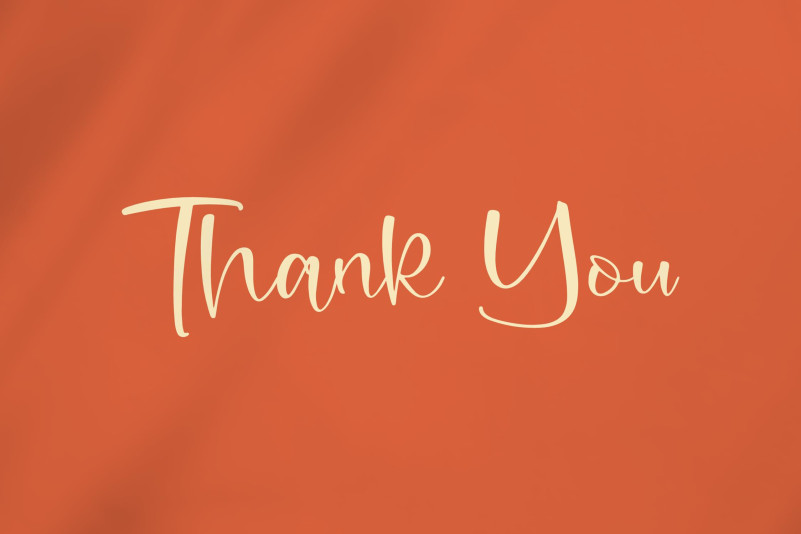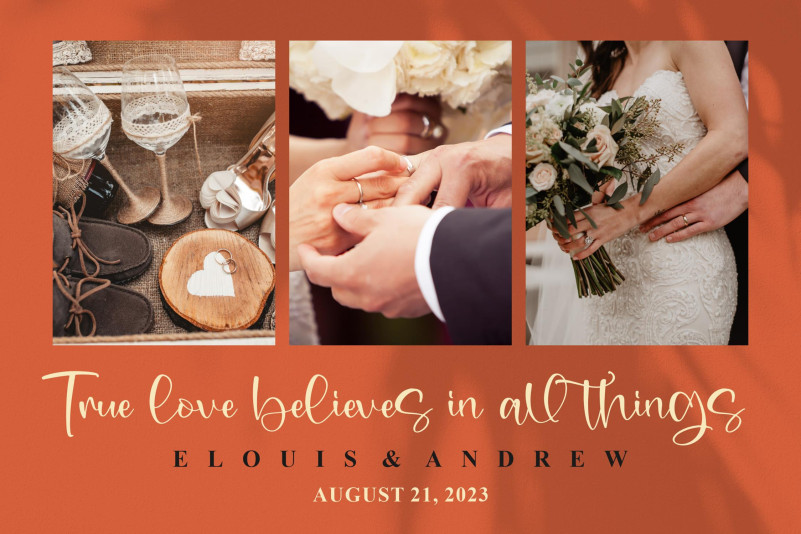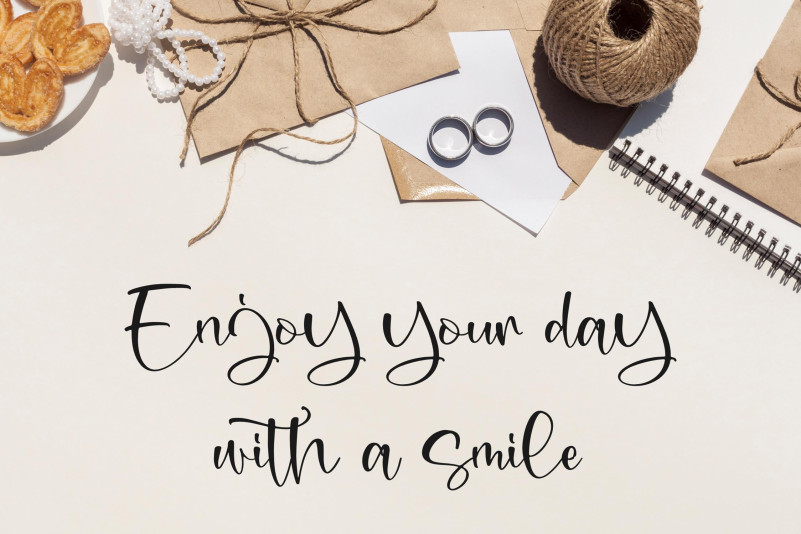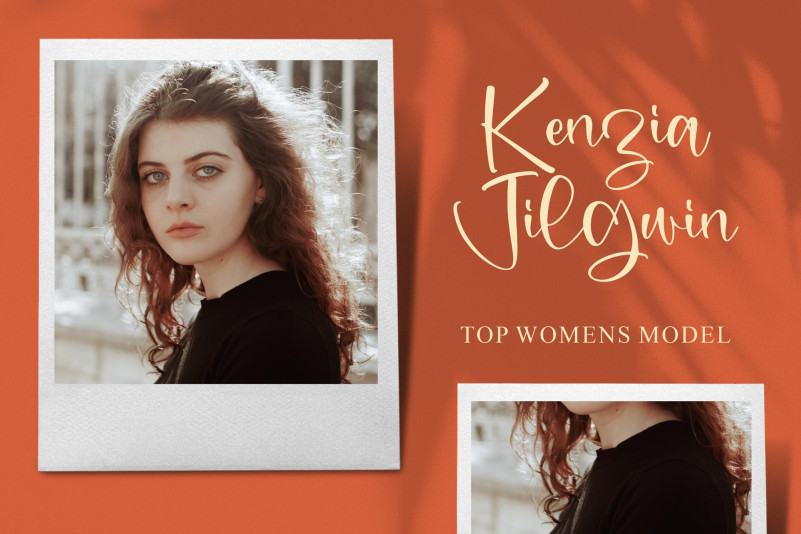
Gabrilone Font
Gabrilone Script Font is a Beauty Handwritten Font, suitable for any projects such as: logos, branding projects, homeware designs, product packaging, mugs, quotes, posters, shopping bags, t-shirts, book covers, name card, invitation cards, greeting cards, label, photography, watermark, special events, and all your other lovely projects that need a beautiful script taste.